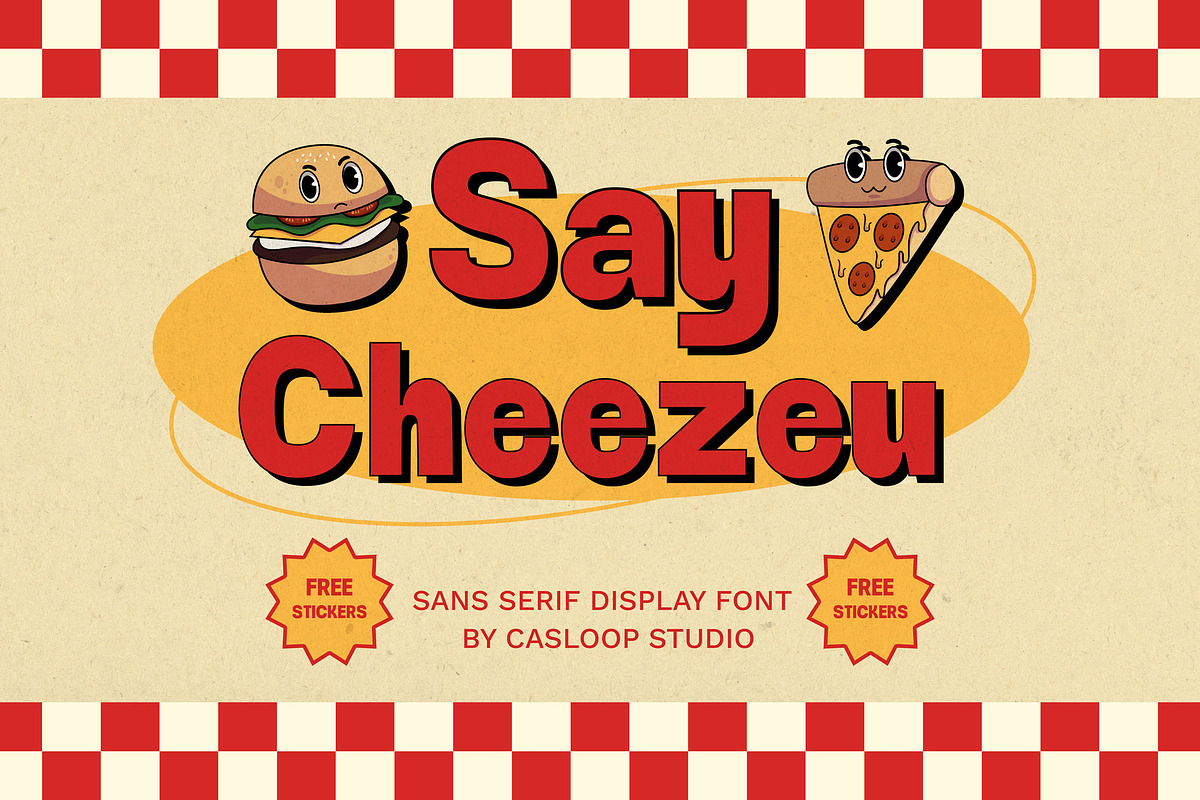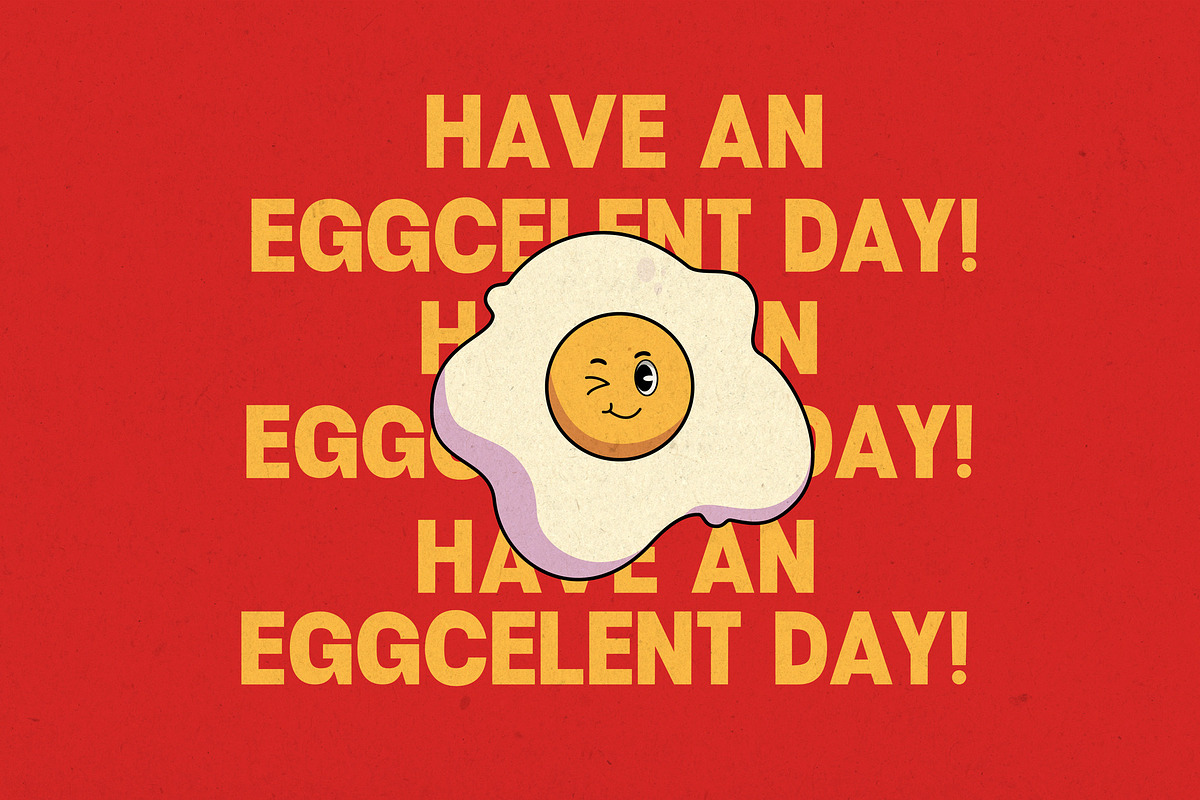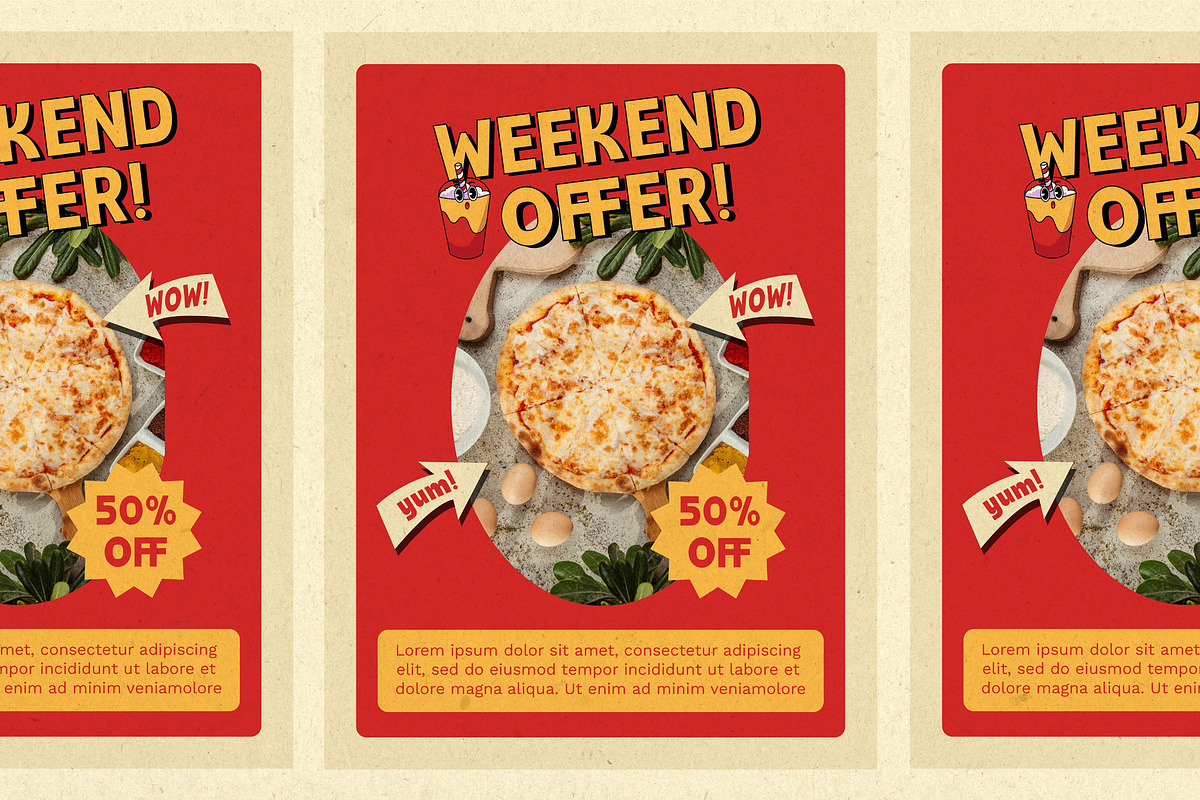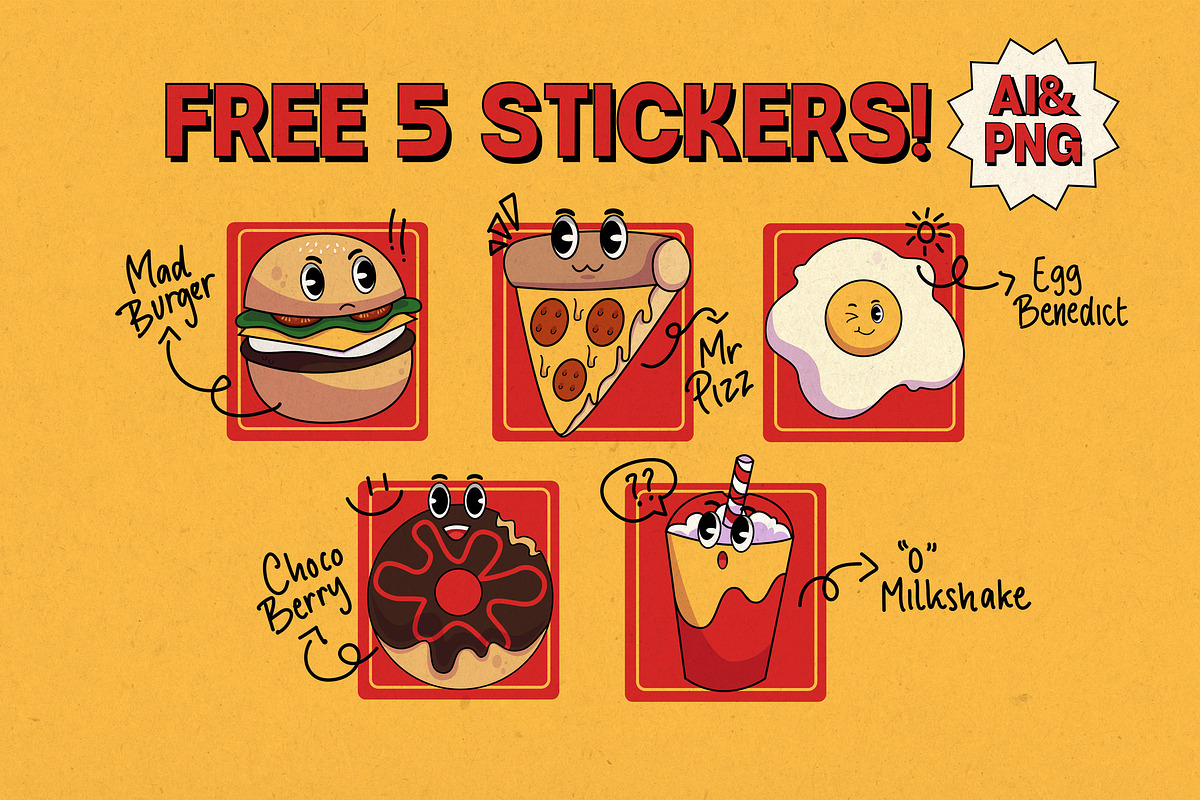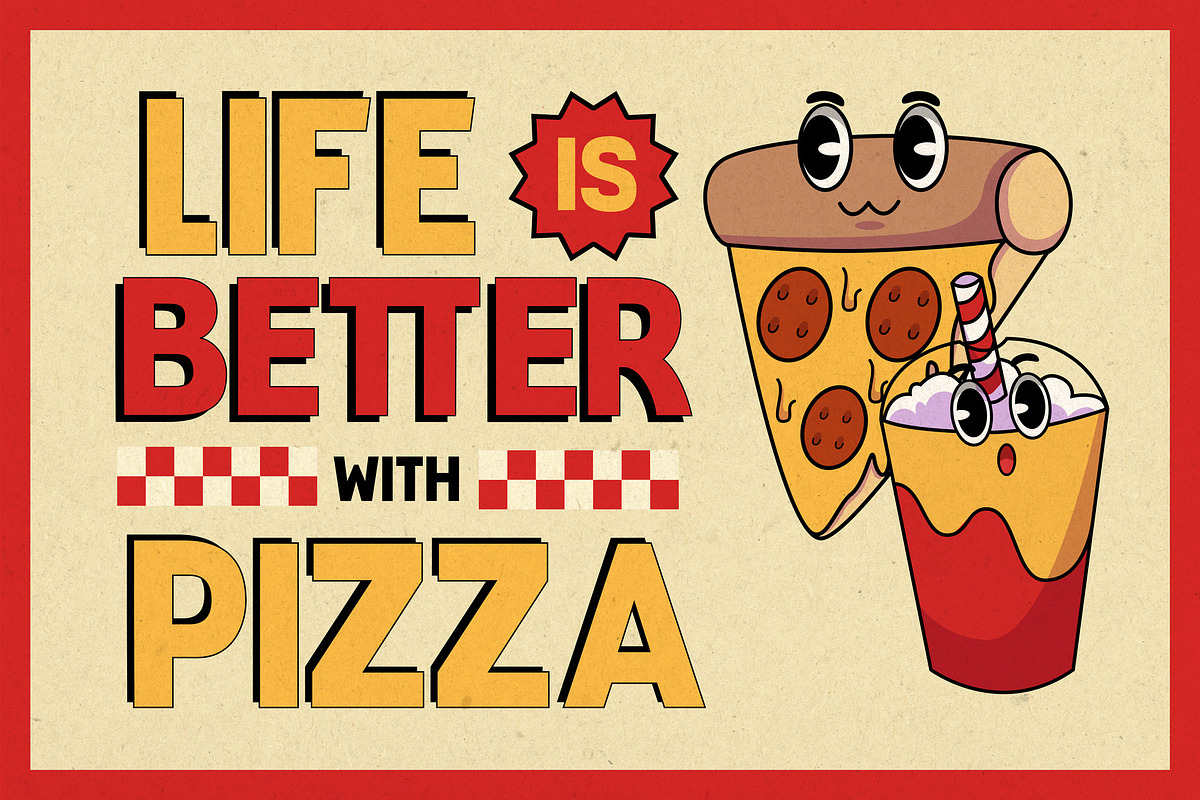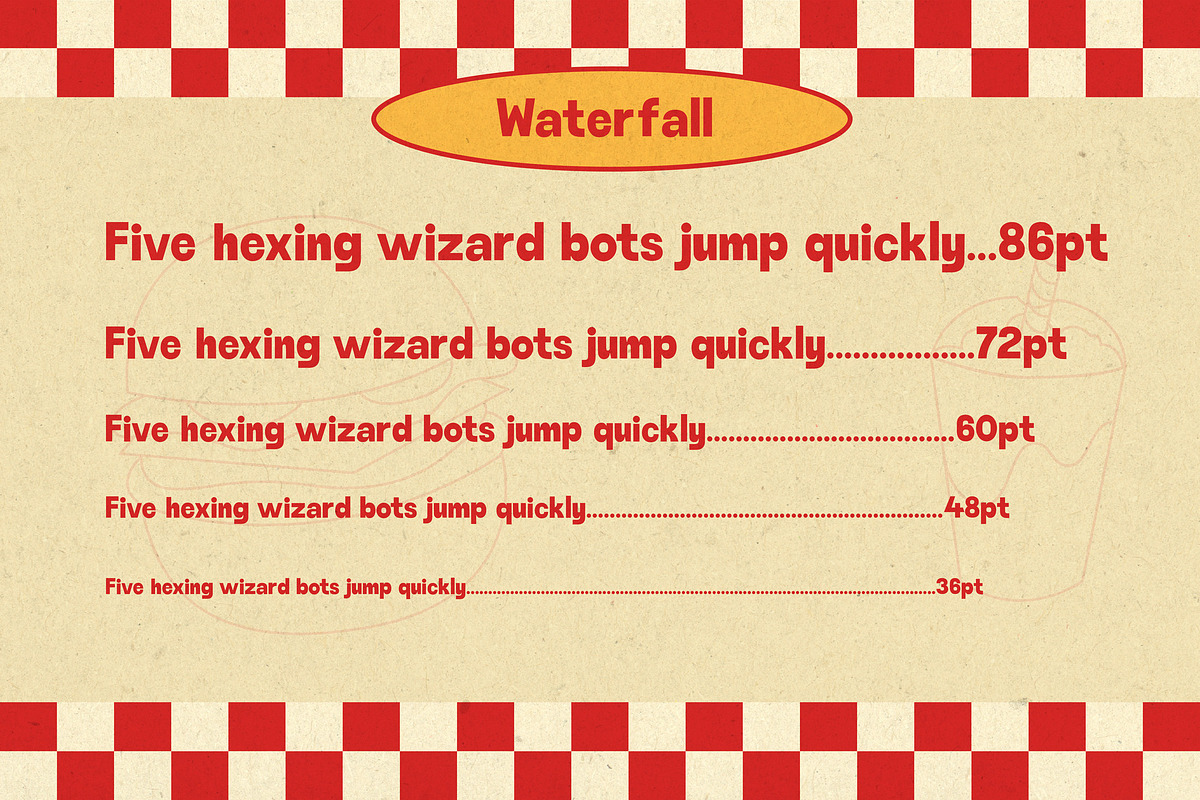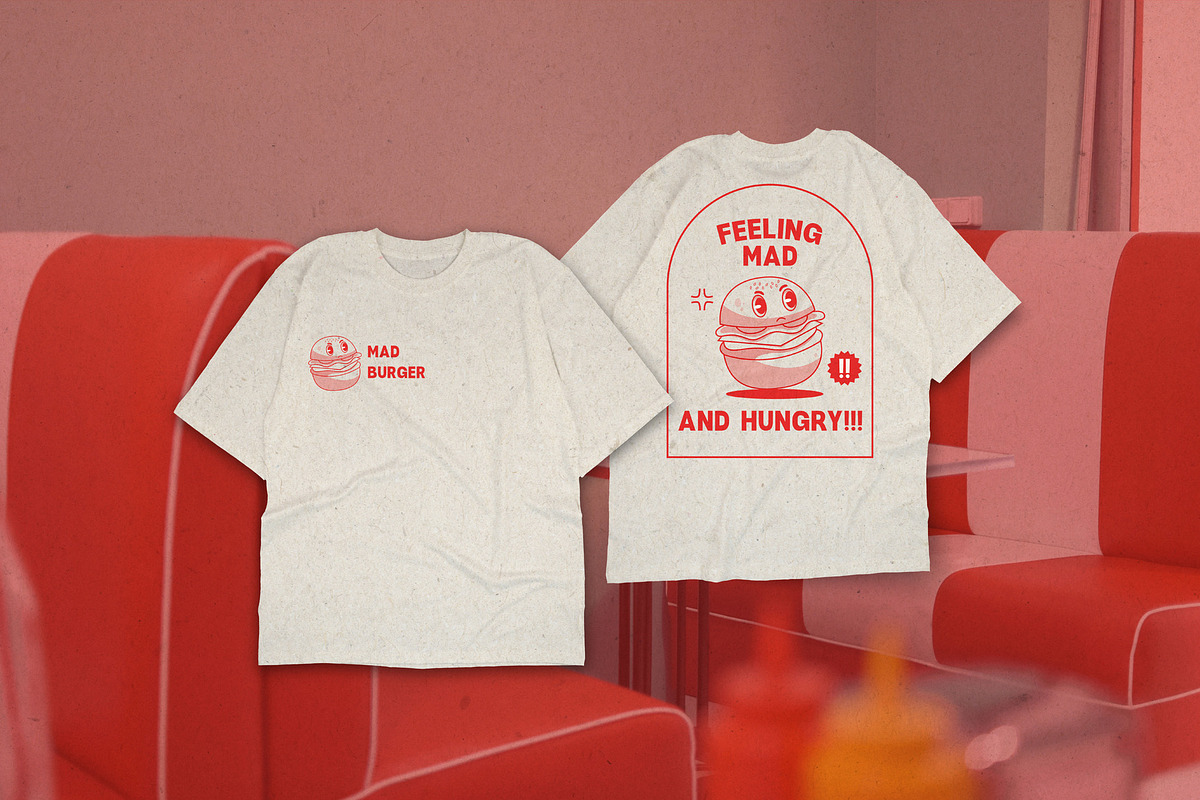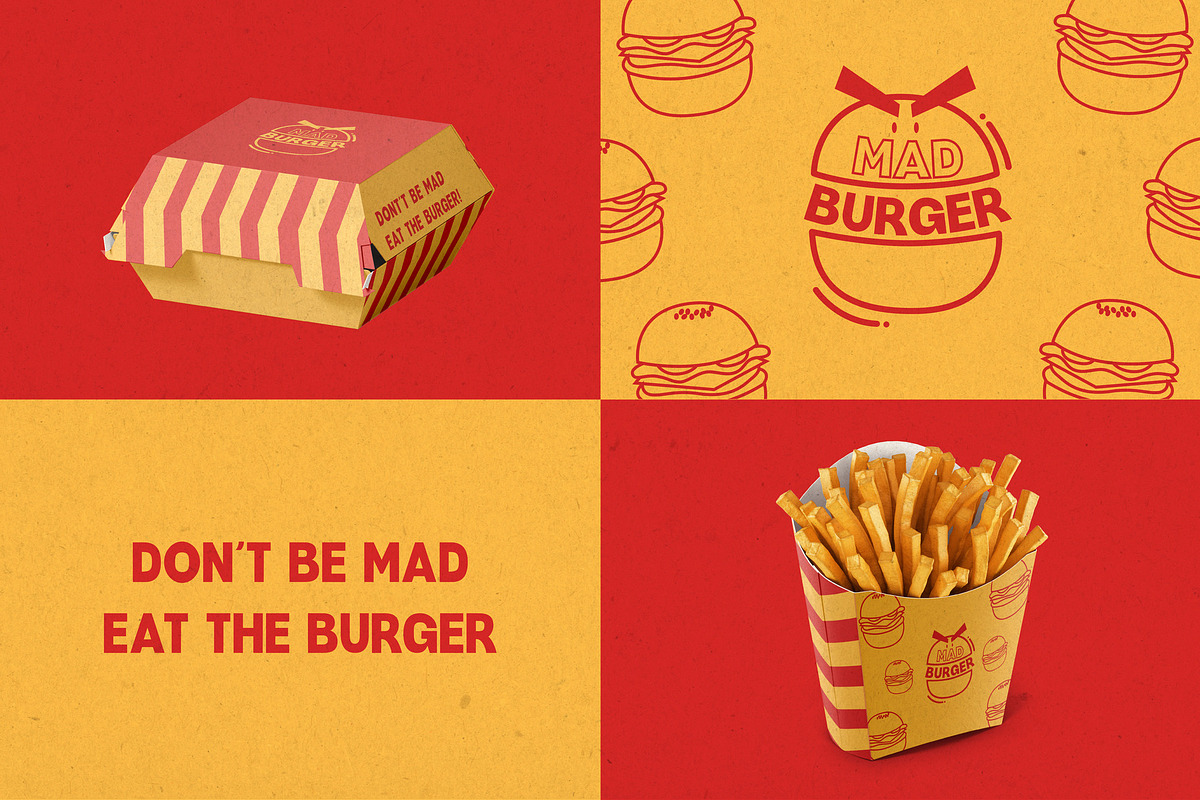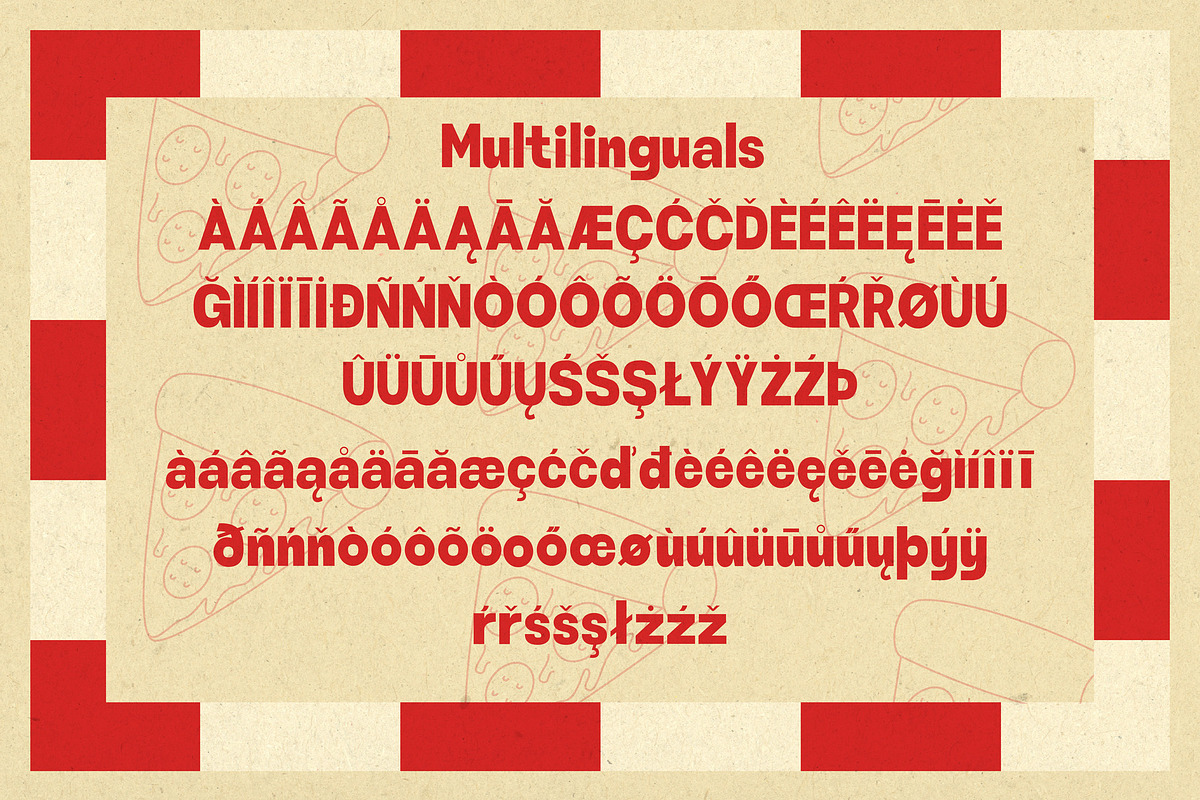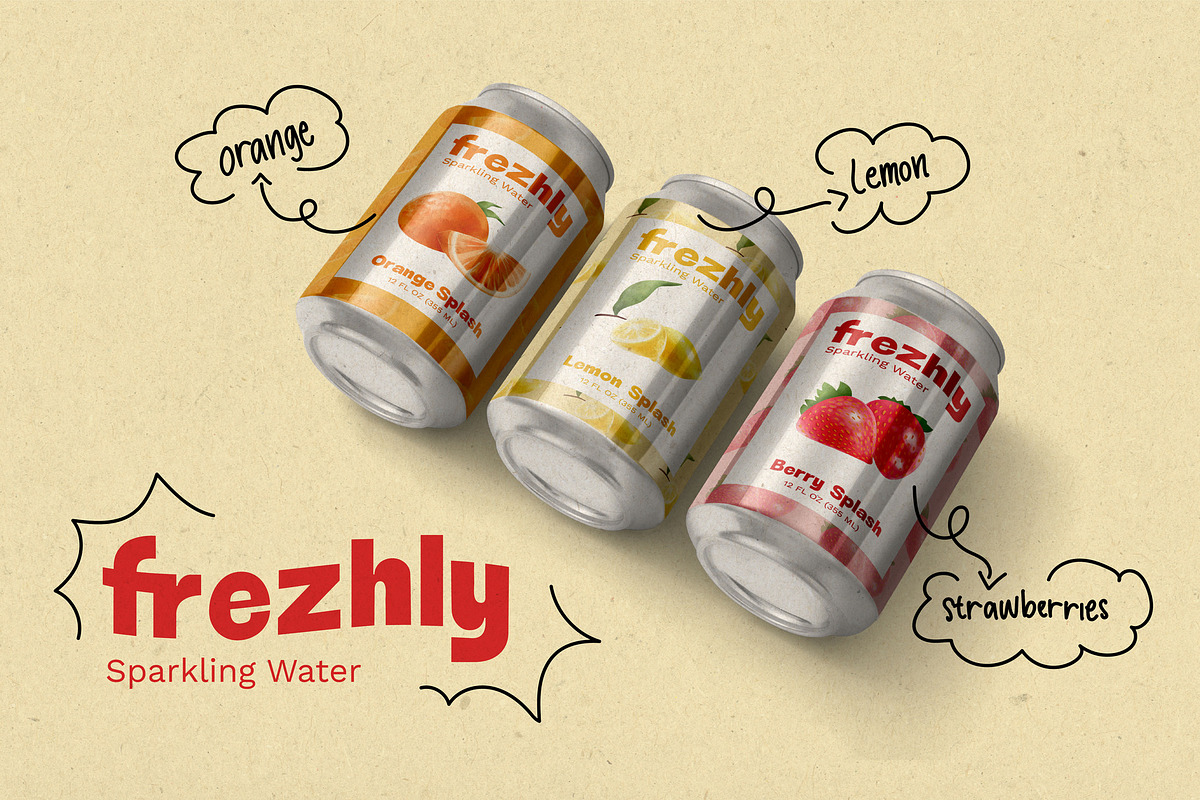
Say Cheezeu Display Sans
Introducing our latest Sans Serif display font "Say Cheezeu" inspired by the retro aesthetics of fast-food restaurants. With its curved and bold design, Say Cheezeu creates a playful impression, making your designs more engaging and attractive. Suitable for various projects such as food branding, packaging, clothing, and other creative endeavors. This font comes with various features, including alternatives, ligatures, and multilingual support. Don't miss out on the exclusive set of 5 'Mr. Pizz n Friends' stickers available. Perfect your design by combining letters according to your preferences using Say Cheezeu. YUMz!